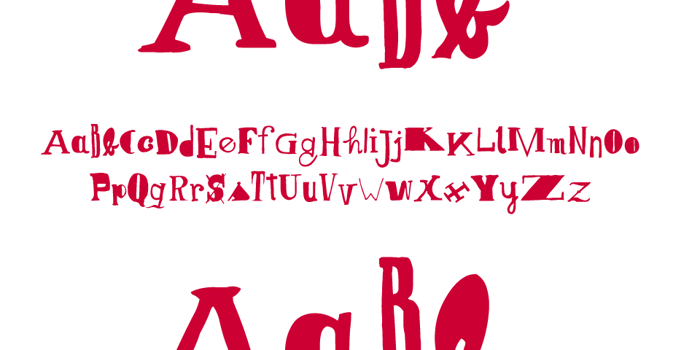
Senza cuore Font
Created as an Exquisite Corpse by the Zetafonts team with guest designer Francesco Cavalli (Leftloft), this character set was assembled as the perfect font for blackmailing and hate mail. Write your worst thoughts in a cute way, blame heartless lovers and bossy coworkers, express your malice with style.